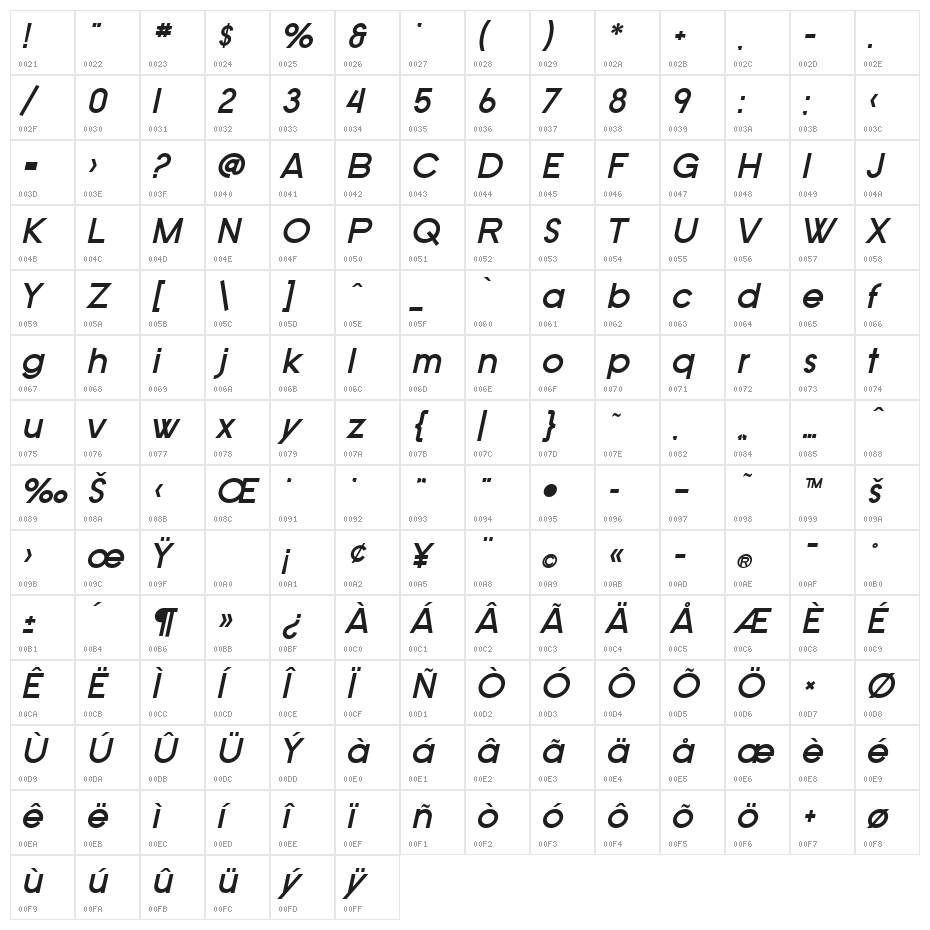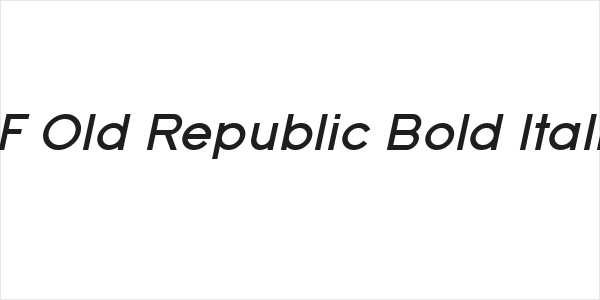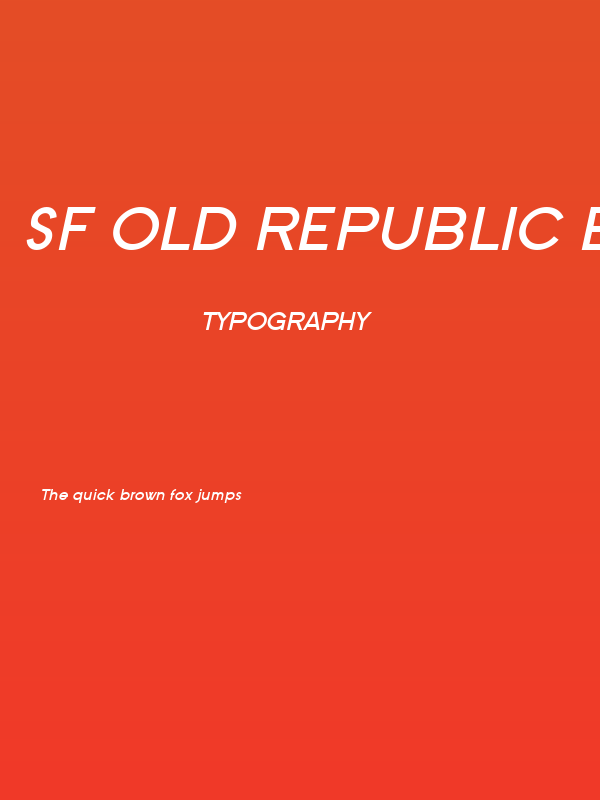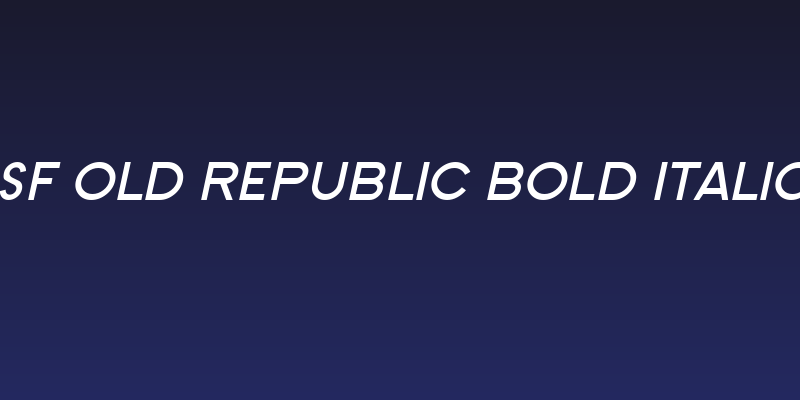
SF Old Republic Bold Italic Font
SF Old Republic Bold Italic Description
This font features a bold and italic style, characterized by its strong, slanted letterforms that convey a sense of movement and dynamism. The uppercase and lowercase letters maintain a consistent weight, providing a balanced appearance. The numerals are clear and distinct, ensuring readability. Special characters are well-defined, adding versatility to the font. Its overall design is modern and sleek, making it suitable for a variety of applications where a bold statement is desired.
| Proposed Projects | Ideal for branding, headlines, posters, and digital media where a strong, modern impression is needed. |